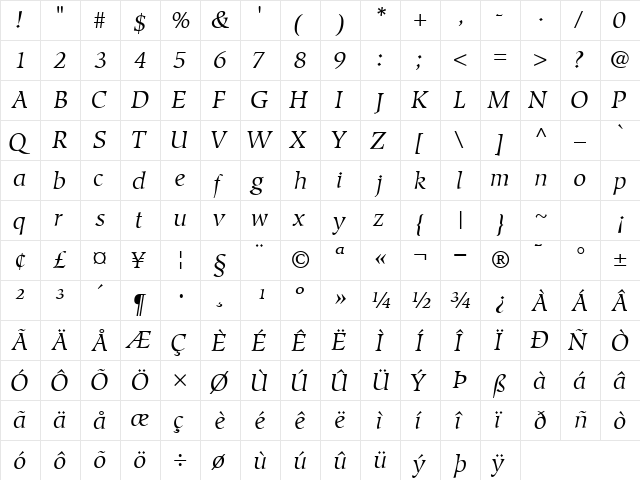
GlossarySSK Italic
Design Context for GlossarySSK Typeface
GlossarySSK takes a measured approach to typography — its balanced proportions and neutral character make it a reliable workhorse for both digital and print work. The slanted form adds forward momentum and visual energy.
Pro Tip: Try GlossarySSK for annotation and caption copy alongside an upright companion — the contrast in angle creates a dynamic but ordered typographic system.